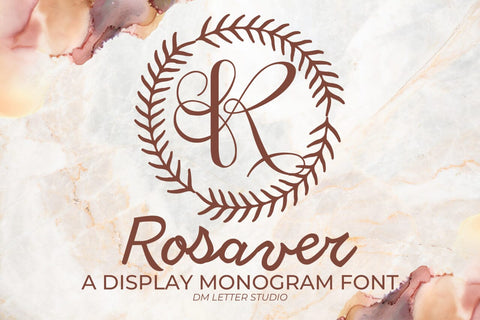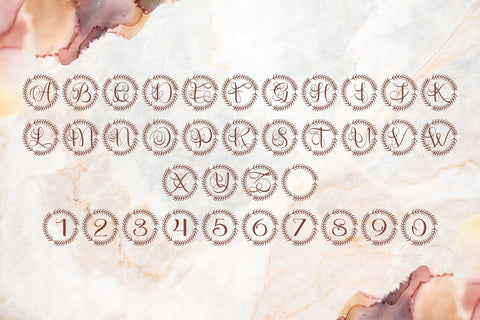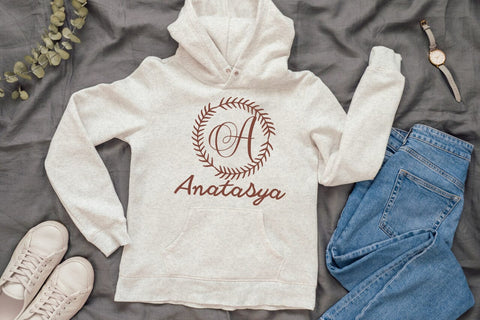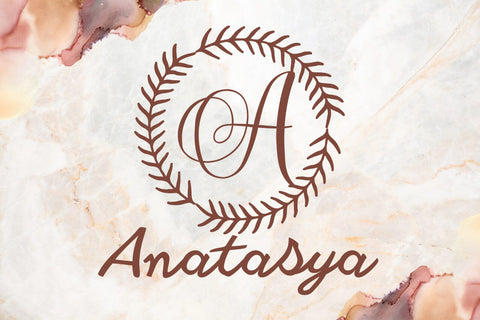
Rosaver Monogram Font
Meet Rosaver, the Monogram Font
Rosaver Monogram Font turns simple initials into soft, romantic emblems. Curves feel graceful and balanced, while open counters keep tiny tags readable. Use it for wedding suites, boutique logos, gift packaging, and keepsake items. Moreover, Rosaver pairs beautifully with modern serifs and quiet humanist sans fonts, so your layouts look refined without extra work.
Where this monogram font shines
Set single, double, or triple initials for logos, seals, menus, and place cards. Then frame them with laurel rings, oval borders, or thin rules to echo the gentle structure. Since proportions favor symmetry, you can build neat, centered compositions in minutes. As a result, your thumbnails stand out in crowded marketplaces and your listings stay consistent from invitations to signage. Rosaver also scales smoothly from jewelry cards to foyer signs.
Design tips for Rosaver Monogram
Keep initials large and let white space breathe. Pair the headline monogram with a soft serif for body text or a clean sans for labels. Meanwhile, add micro shadows, a fine inner stroke, or a delicate frame to add depth. Because the letterforms feel airy, textured papers and metallic accents raise perceived value. However, keep the copy short so the monogram remains the hero on small items.
Select stylistic alternates for key letters
Curves tuned for foil, letterpress, engraving, laser, and clean vinyl cutting
Why creators choose Rosaver
You want romance with clear readability. Rosaver delivers both. It grabs attention in thumbnails, speeds layout, and keeps your brand voice cohesive across invitations, packaging, and gifts.